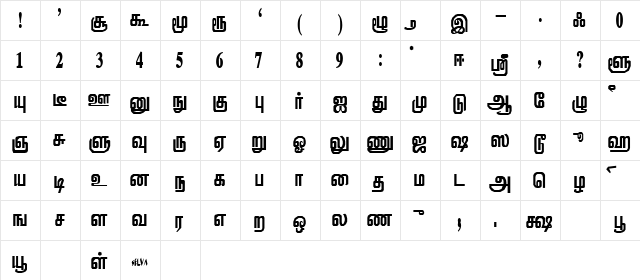
Viththi Regular
Design Context for Viththi Typeface
Viththi offers clean, dependable letterforms without strong stylistic allegiance, making it a practical choice for designers who need flexibility.